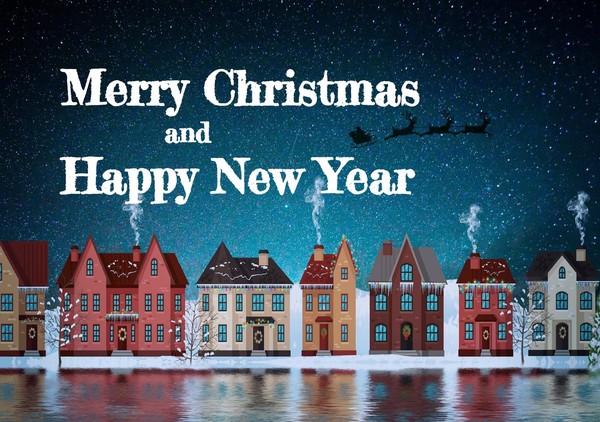
Fredericka the Great Font Christmas Google Docs Template
Get ready to make your projects festive with Fredericka the Great Font! This Christmas font will add a touch of joy and cheer to any project. With its graceful curves and unique styling, Fredericka the Great Font is sure to make your projects stand out. Whether you're creating holiday cards or Christmas decorations, Fredericka the Great Font is sure to make your projects shine. Get ready to make your projects special with Fredericka the Great Font Google Docs Christmas template!
Fredericka the Great font is perfect for a more sophisticated design.